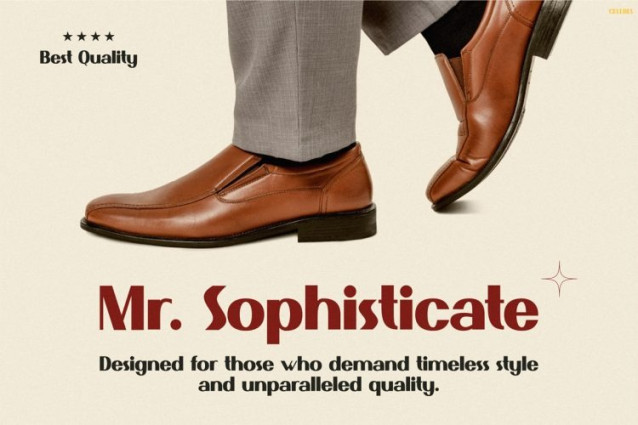
Celebes Display Font
Celebes Display Font a bold statement of classic sophistication combined with modern confidence. From the first glance, this font commands attention through strong serif forms, balanced proportions, and a distinctive vintage character. Inspired by heritage typography, tailored menswear, and classic editorial design, Celebes projects authority with style. Its letterforms communicate confidence without stiffness and elegance without fragility. As a result, every headline looks intentional, premium, and memorable. Moreover, the clean contrasts and confident curves ensure excellent readability across digital and print formats. Whether designers use it for fashion visuals, luxury promotions, or editorial layouts, Celebes instantly elevates the message and reinforces a refined brand identity.
Retro Font Celebes bridges nostalgic aesthetics with modern branding demands. The font draws from classic print serif traditions while maintaining a polished, contemporary finish. Each character features precise construction, creating consistency across uppercase, lowercase, numerals, and punctuation. Designers can rely on Celebes for strong performance in large display text as well as structured layouts. Because the font carries a confident personality, it excels in logos, headlines, posters, packaging, and premium branding materials. In addition, its refined spacing supports clean compositions for social media graphics, website hero sections, and promotional campaigns. Celebes does more than decorate—it strengthens brand presence, sharpens visual hierarchy, and enhances overall communication.
Who Is This Font For
Retro Font Celebes suits fashion designers, boutique owners, menswear brands, barbershops, lifestyle labels, and creative studios seeking a vintage yet upscale identity. It also benefits entrepreneurs, marketers, and content creators who want visuals that project confidence and exclusivity. Brands that value craftsmanship, heritage, and bold presentation will find Celebes a perfect match. Designers can also apply it to editorial spreads, luxury packaging, retro posters, event promotions, and premium brand systems that demand clarity and impact.